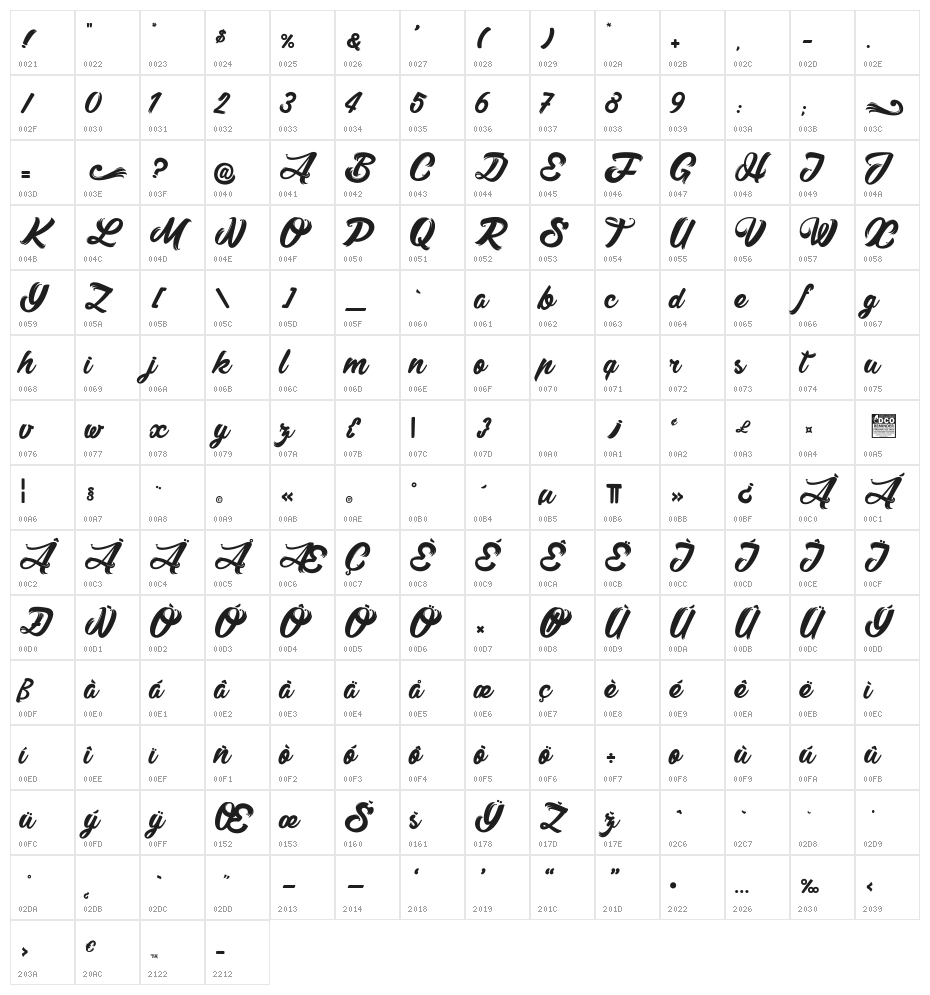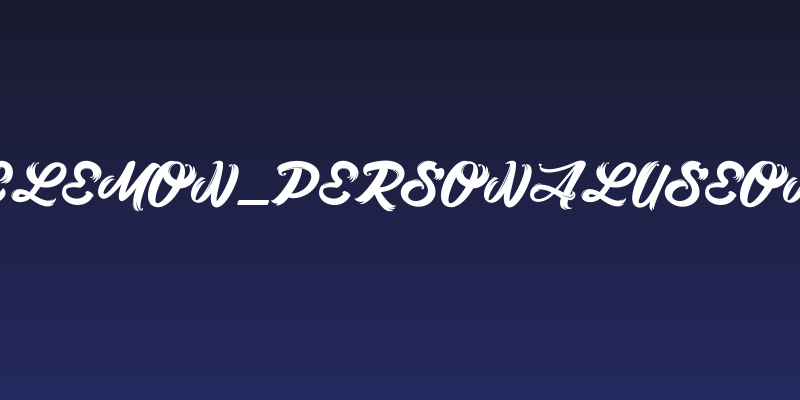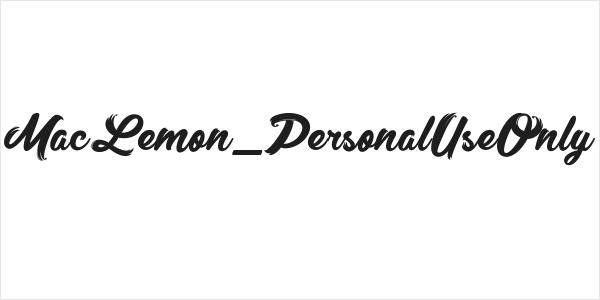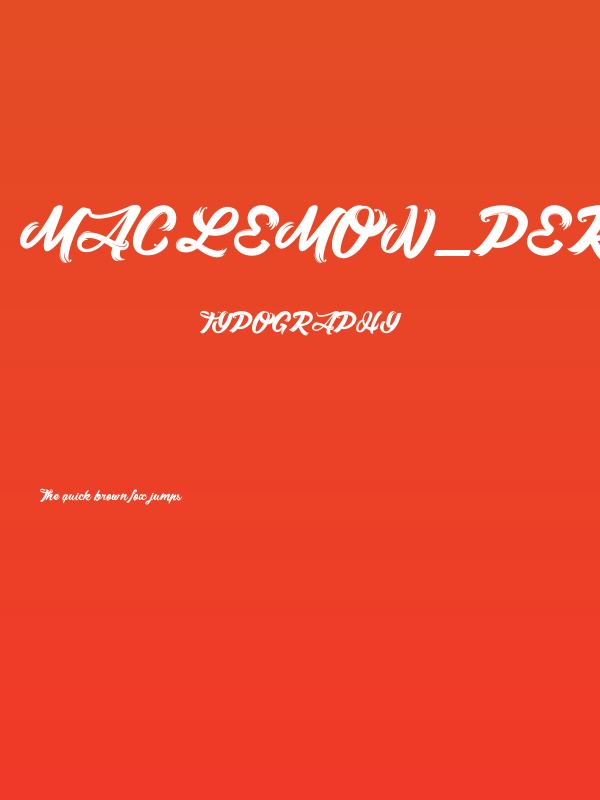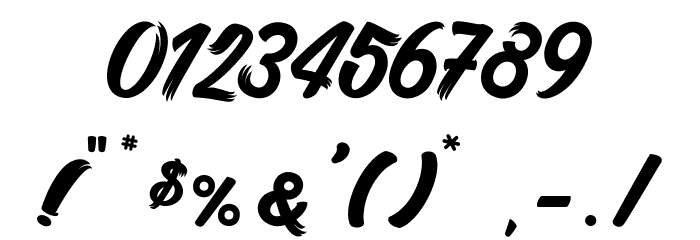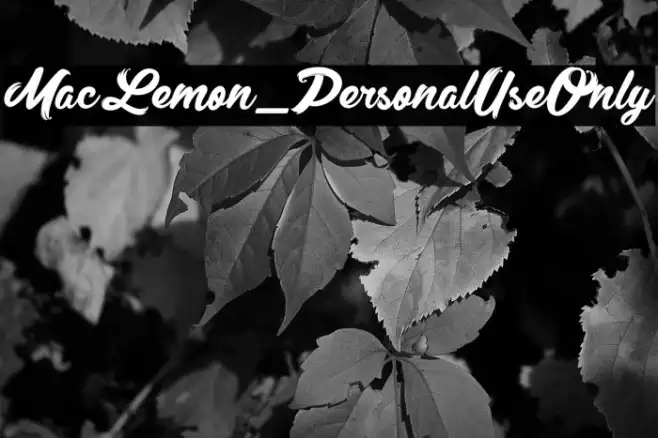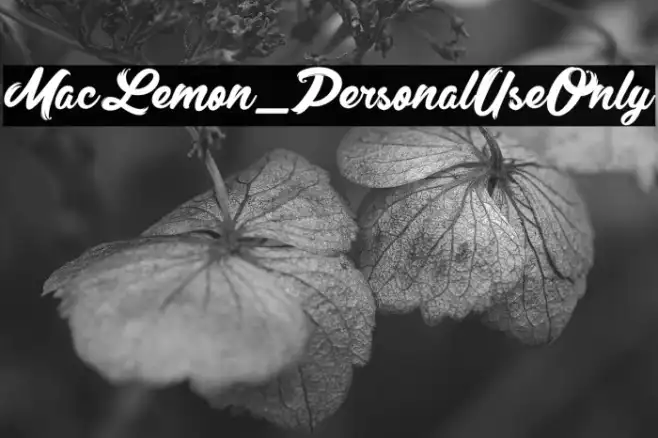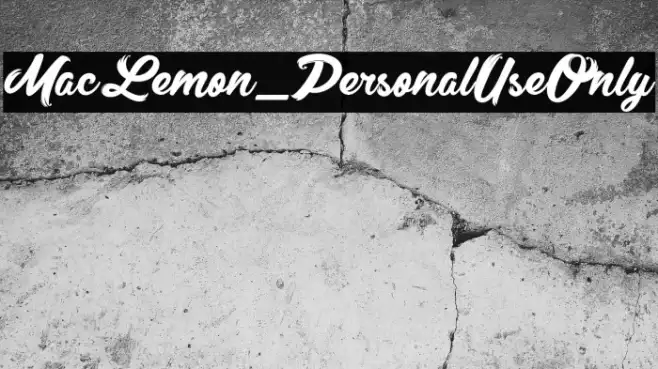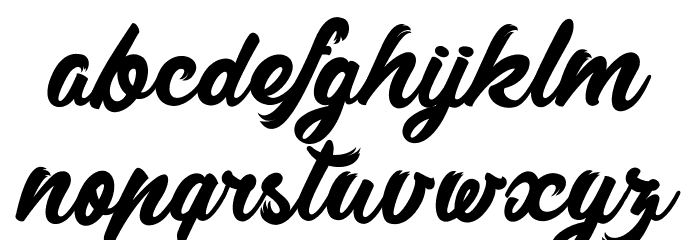
MacLemon_PersonalUseOnly Font
MacLemon_PersonalUseOnly Description
This font features a bold and dynamic script style with a brush-like appearance. The characters are fluid and connected, giving a sense of movement and energy. The uppercase letters are slightly more ornate, with flourishes that add a touch of elegance. The lowercase letters maintain a consistent flow, enhancing readability while retaining a stylish flair. Numbers and special characters are designed to match the overall aesthetic, ensuring a cohesive look across all text. The font's bold strokes and high contrast make it stand out, ideal for creating impactful designs.
| Proposed Projects | Ideal for branding, logo design, invitations, and headlines that require a bold and artistic touch. |